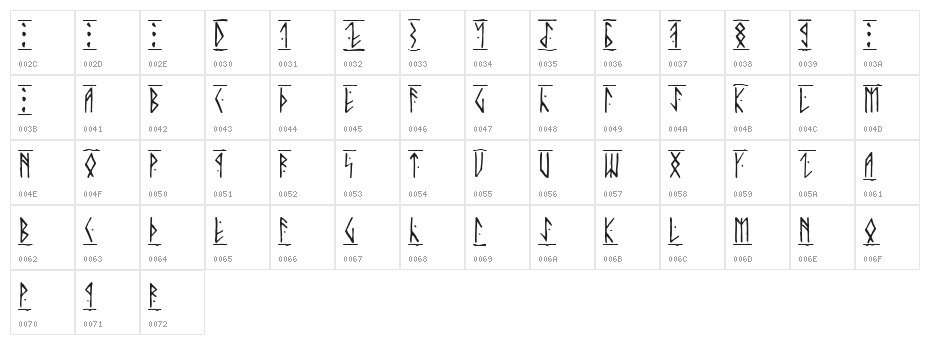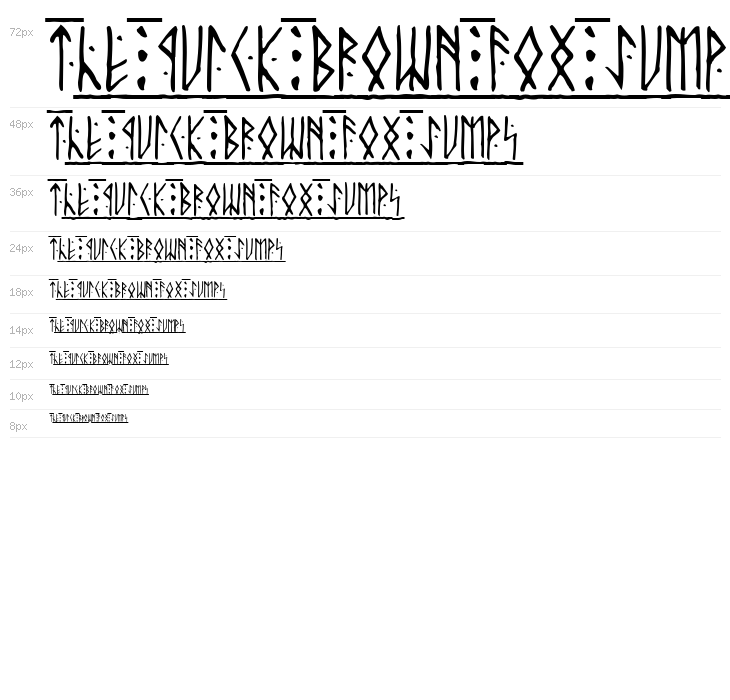
Runic Alt Font
Runic Alt Description
This font features a unique runic style, reminiscent of ancient scripts with a modern twist. The characters are angular and geometric, with sharp edges and distinct lines that evoke a sense of mystery and history. Each letter is crafted with a consistent height and width, maintaining a uniform appearance across the alphabet. The numerals and special characters follow the same stylistic approach, ensuring cohesiveness throughout the font. The spacing between characters is moderate, allowing for readability while preserving the intricate design. This font is ideal for projects that require a touch of the mystical or historical, such as fantasy-themed designs, historical reenactments, or cultural exhibitions.
| Overall Style | Mystical, Historical |
| Use Case | Headlines, Logos, Themed Events |
| Proposed Projects | Fantasy-themed designs, historical reenactments, cultural exhibitions, or game interfaces. |